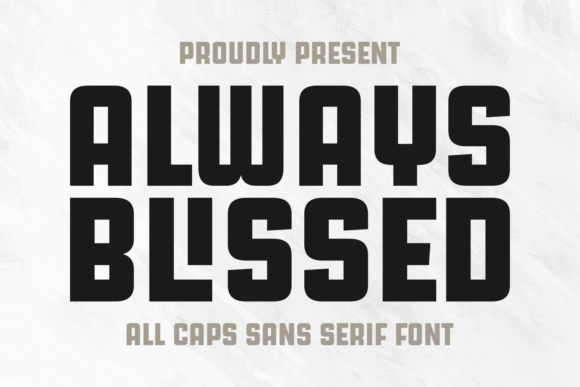
Discover the Elegance of Always Blissed Font: A Clean and Stylish Sans-Serif
In the realm of typography, fonts play a crucial role in defining the aesthetic and tone of any design project. Among the myriad of fonts available, Always Blissed stands out as a beacon of simplicity and sophistication. This clean and stylish all-caps sans-serif font has been gaining popularity for its modern design and versatility, making it an ideal choice for headers, titles, branding, and more.
What is Always Blissed Font?
Always Blissed is a meticulously crafted all-caps sans-serif font that embodies the essence of modern design. Its clean lines, simple shapes, and elegant curves make it a perfect fit for projects that demand a touch of sophistication. The font’s design ensures that it remains highly legible, even at smaller sizes, making it versatile for various applications.
Key Features of Always Blissed Font
- Clean and Stylish Design: The font boasts a minimalist aesthetic that is both contemporary and timeless.
- All-Caps Format: The uppercase format of Always Blissed ensures a crisp and commanding presence on any medium.
- High Legibility: The simple and clear design makes it easy to read, even from a distance.
- Versatility: Suitable for a wide range of projects including headers, titles, branding, and advertising.
- Modern Aesthetic: Adds a sleek and polished look to any design.
Ideas for Using Always Blissed Font
The versatility of Always Blissed makes it suitable for various design projects. Here are some ideas on how to incorporate this elegant font:
- Branding: Elevate your brand’s visual identity with a sophisticated and modern look.
- Web Design: Use it for headings and titles to add a touch of elegance to your website.
- Print Design: Perfect for brochures, posters, and business cards where a clean and professional look is desired.
- Advertising: Make your ads stand out with a font that commands attention and exudes professionalism.
- Packaging: Add a modern and sleek look to your product packaging.
The Benefits of Using Always Blissed Font
Choosing Always Blissed for your design projects comes with numerous benefits:
- Enhanced Readability: Its clear and simple design ensures that your message is conveyed effectively.
- Timeless Appeal: Unlike trendy fonts that may quickly become outdated, Always Blissed offers a timeless elegance.
- Professional Look: Instantly elevates the professionalism of your design.
Tips for Effective Use of Always Blissed Font
To maximize the impact of Always Blissed, consider the following tips:
- Pair with Complementary Fonts: For body text, pair Always Blissed with a clean, readable serif or sans-serif font.
- Choose Appropriate Sizes: Use larger sizes for headings and titles, and smaller sizes for subheadings and body text.
- Experiment with Colors: While Always Blissed works well in black and white, experimenting with colors can add a unique touch.
- Maintain Consistency: Ensure consistent use of the font across your design to maintain a cohesive look.
Always Blissed font is a versatile and elegant choice for designers looking to add a touch of sophistication to their projects. Its clean and stylish design, combined with its readability and modern aesthetic, makes it an excellent option for a wide range of applications. Whether you’re working on branding, web design, print design, or advertising, Always Blissed is sure to deliver a polished and contemporary look that elevates your design to the next level.